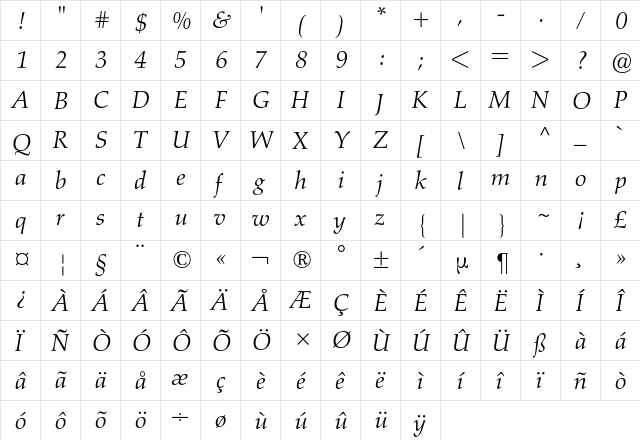
Aldus BQ Regular
Design Context for Aldus BQ Typeface
Aldus BQ takes a measured approach to typography — its balanced proportions and neutral character make it a reliable workhorse for both digital and print work.
Pro Tip: Use Aldus BQ in both headline and body roles to test its range before committing to a single application.